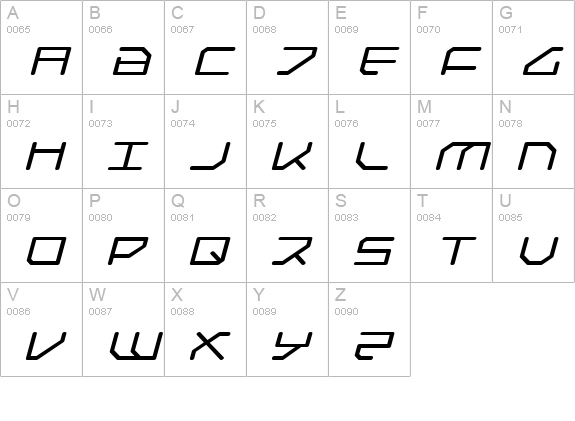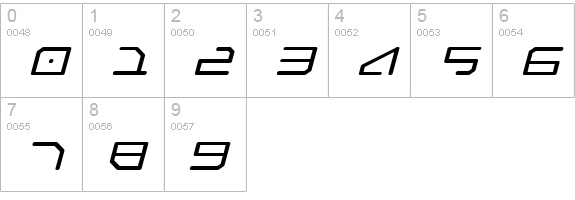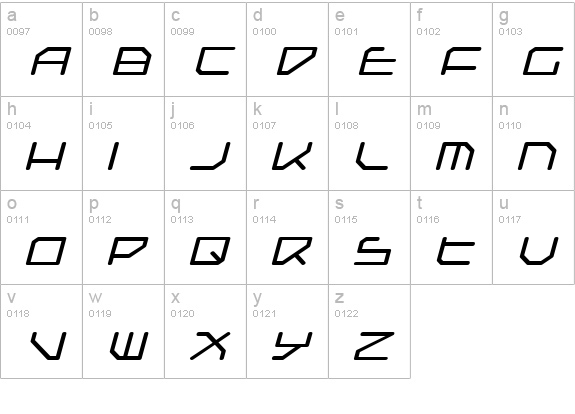
Federapolis Expanded Italic is a distinctive, extended-width, italic variant in the Federapolis typeface family \xE2\x80\x94 well suited to design and typography projects.
Federapolis Expanded Italic font exudes elegance and sophistication with its sleek and stylish design. The italicized letters possess a sense of movement and dynamism, making them perfect for adding a touch of flair to any project. Whether used for headings, quotes, or body text, this font commands attention and leaves a lasting impression. What sets Federapolis Expanded Italic apart is not just its striking appearance, but also the fact that it is available for free download at FontsMarket.com. This means that you can elevate your designs without breaking the bank, making it an ideal choice for designers, creatives, and anyone looking to enhance their projects with a touch of modernity and class. Don't miss out on the opportunity to enhance your typography with Federapolis Expanded Italic – download it for free today at FontsMarket.com and watch your designs come to life with a touch of sophistication and style.